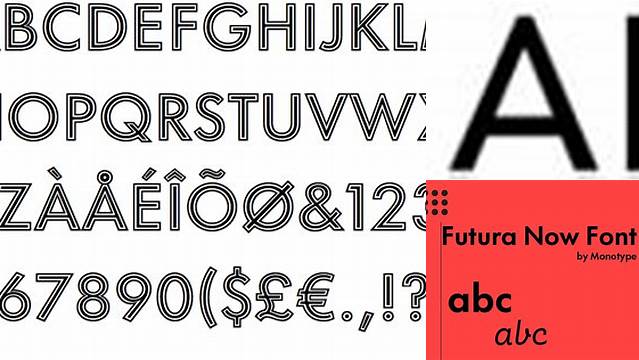
Futura Now Inline Fill Font Free Download: Your Ultimate Guide
Futura Now Inline Fill Font is a timeless classic, guys! It's that sleek, geometric typeface you've probably seen a million times, and for good reason: it's incredibly versatile and looks fantastic in almost any design. But what makes it even cooler? The inline fill version, which adds a unique, modern twist. And the best part? You can find Futura Now Inline Fill Font free download options! This article is your ultimate guide to everything you need to know about this awesome font, including where to grab it, how to use it, and some fun design ideas to get your creative juices flowing. So, let's dive in, shall we?
Futura Now Inline Fill Font: Unveiling the Design Aesthetic
Alright, let's talk about the design. Futura Now Inline Fill Font isn't just a font; it's a statement. It's clean, it's modern, and it exudes a sense of sophistication. The inline fill adds an extra layer of visual interest, making your text pop and grab attention. Think of it as the cool kid in the font world – always stylish, always in demand. This particular variant of Futura features a hollowed-out design, with a line outlining the letterforms and a negative space filling the interior. This gives it a unique look that's both modern and playful. The font’s geometric shapes and clean lines make it highly legible and versatile, suitable for a wide range of design applications. When you use this font, you're not just typing words; you're crafting a visual experience. It’s about the impact, the feel, and the message you are sending. The typeface's simplicity allows it to blend seamlessly with various design elements, making it a go-to choice for many designers. Its ability to stand out while remaining understated is part of its charm. Whether you're designing a website, creating a poster, or working on a logo, the Futura Now Inline Fill font can elevate your project. The consistent style and geometric precision give the font its timeless appeal. Its adaptable nature allows it to be used across multiple mediums, from print to digital displays. The font’s balanced appearance ensures that it’s easy on the eyes, whether used in large headlines or smaller body text. Guys, if you're looking for a font that's both eye-catching and easy to read, this is the font for you. With its unique design, Futura Now Inline Fill adds a creative edge to any project, proving that simplicity and innovation can go hand in hand. The font's sleek lines and hollowed interiors create a captivating effect that distinguishes it from traditional typefaces. This characteristic not only improves visual interest but also enhances readability, ensuring that your message is both stylish and clear.
The Best Uses for Futura Now Inline Fill Font: Design Inspiration
So, you've got the font, now what? Let's explore some creative ways to use Futura Now Inline Fill Font. This font works wonders in various design projects, guys. It's all about finding the right balance and using it to its full potential. Here are some ideas to inspire you:
- Logos: The clean lines of Futura Now Inline Fill make it a fantastic choice for logo design. The inline fill adds a modern touch, making your logo stand out from the crowd. This is perfect if you are looking to create a strong visual identity for your brand. Think about using the font to create a striking wordmark or incorporating it into a more complex logo design. It offers a contemporary aesthetic, which can resonate well with a modern audience. You want the logo to convey a sense of sophistication and innovation, and this font can help you achieve that. You can customize the fill color to reflect the brand's personality. If you are looking to communicate a sense of trustworthiness and forward-thinking, Futura Now Inline Fill might just be the perfect match.
- Headlines and Titles: Want to grab attention? Use the font for headlines and titles. Its unique style is sure to capture readers' eyes and draw them into your content. The font’s bold and distinctive nature can enhance readability and make your headlines memorable. You can use it in various contexts, from website banners to printed posters. The hollowed-out style ensures that your headlines are visually interesting without being overly distracting. With Futura Now Inline Fill, you can convey your key messages with elegance and impact. This is especially useful if you wish to highlight certain aspects of your content, allowing the reader to quickly grasp the main themes. The inline fill adds a dynamic element that traditional typefaces often lack. When you want your headlines to be seen, this font can help you do it.
- Posters and Flyers: Futura Now Inline Fill is ideal for posters and flyers. The font's unique design makes it perfect for conveying a modern feel. The font’s ability to stand out while remaining easy to read makes it perfect for large-format designs. Whether you're promoting an event, advertising a product, or simply sharing information, the font will help your message stand out. Its versatile nature allows for easy adaptation to different design layouts. Consider using the font for key information, such as event dates, prices, and contact details. You can add a distinctive look that is both artistic and informative. The font's clean lines ensure that it doesn't clutter the design but complements it. With this font, your posters and flyers will look modern and eye-catching. You can make sure your message is both aesthetically pleasing and effective. The font offers a unique blend of style and readability, ensuring that your content remains accessible and engaging to viewers.
- Website Design: Make your website look professional with Futura Now Inline Fill Font. This font enhances readability and adds a touch of modern elegance to your site. The font works well for headings, subheadings, and even short paragraphs. It can create a more user-friendly experience. The font's clean lines and distinct appearance contribute to a seamless visual experience. The font's versatility allows it to be incorporated into different parts of the website, making it adaptable to the overall design. This font can create an overall impression of professionalism and modernity. The font's clear structure helps ensure that the site's content is easy to read and engaging. You can also customize the font's colors to complement your site's overall style. Whether your goal is to attract new users or showcase your brand, using the font can give your website a stylish and professional look. The font’s ability to stand out ensures that your website looks both creative and user-friendly.
- Social Media Graphics: Social media posts are a great place to use the font. Use it for eye-catching captions and quotes. The font is sure to get noticed. With its unique style, you can easily convey your messages and add creativity to your posts. This font provides a fresh look that can increase engagement and interaction. Social media graphics give a memorable and unique look that can attract followers. If you want to add some flair and express your creativity, Futura Now Inline Fill is the way to go. The font helps your posts stand out. You can create attention-grabbing designs and increase your reach. The font is guaranteed to leave an impression on your audience.